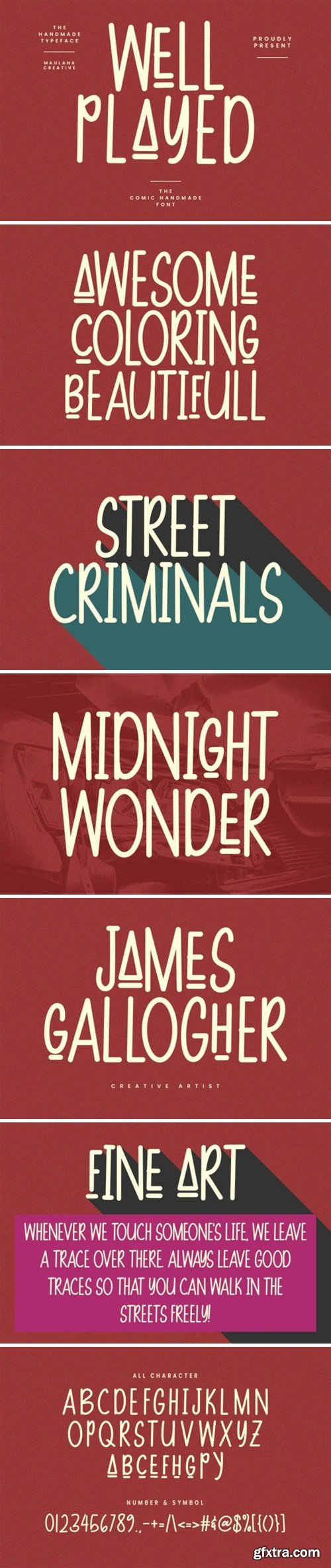
Well Played Font
Well Played is a unique, handmade display font that gives your text a playful and artistic feel. Its handcrafted style makes it perfect for creating eye-catching designs, like posters, invitations, and social media graphics. This font adds a touch of personality and creativity to any project.